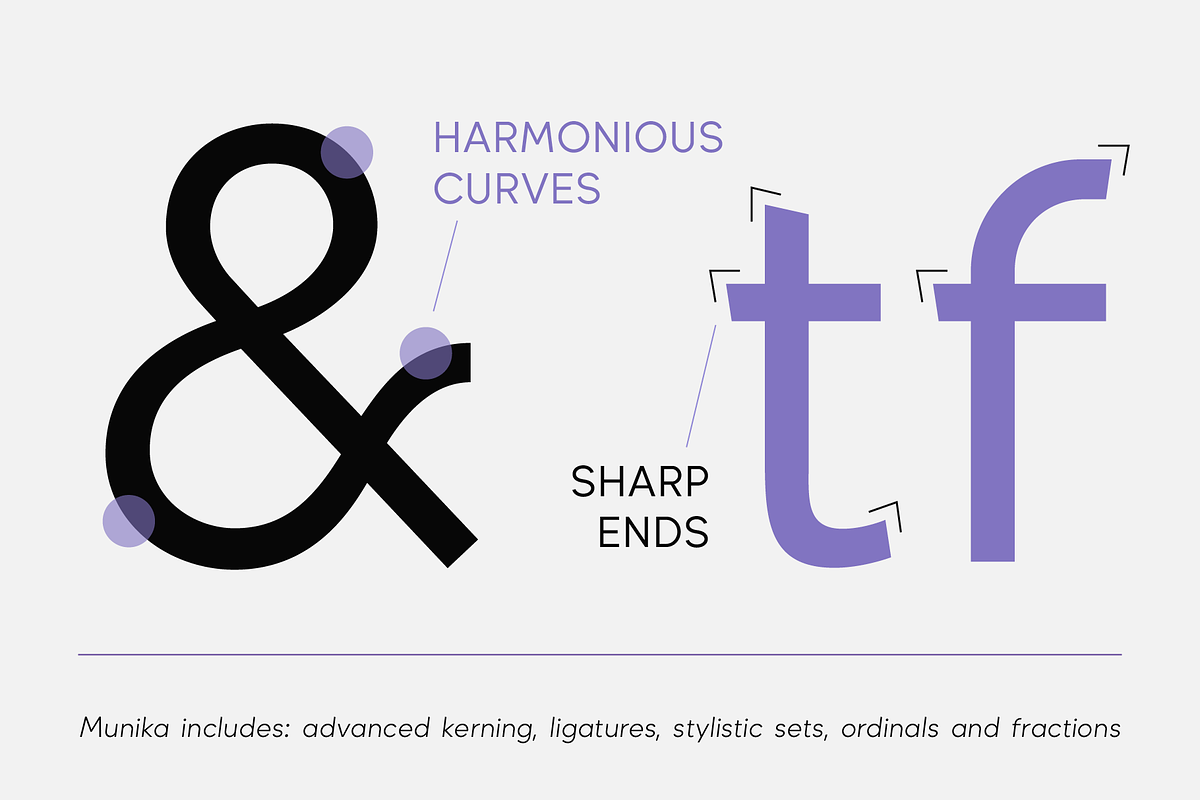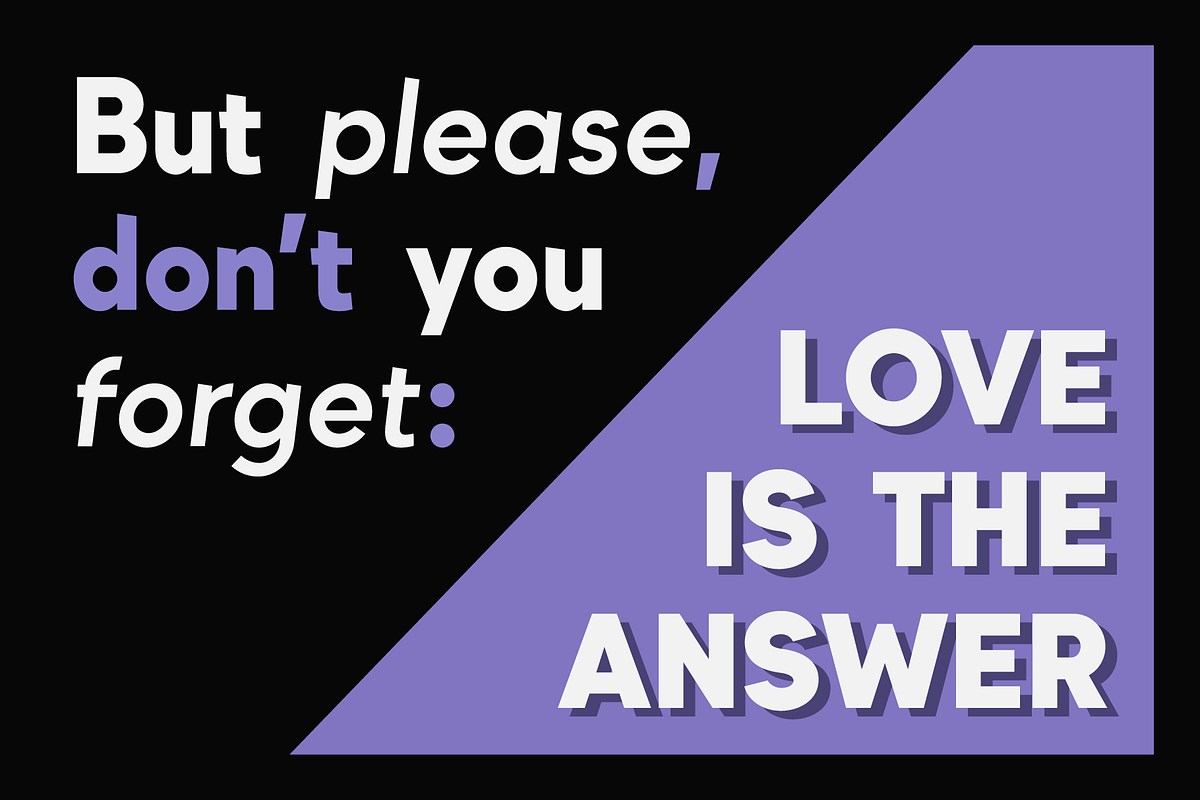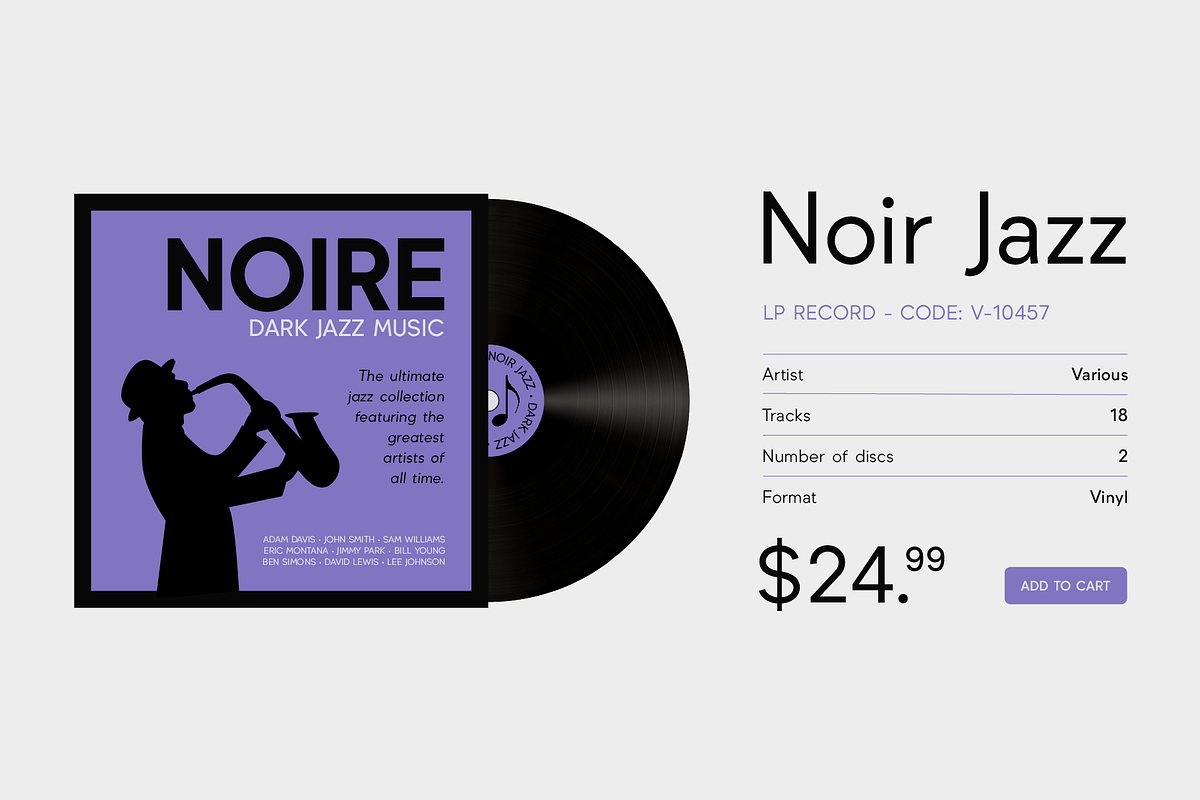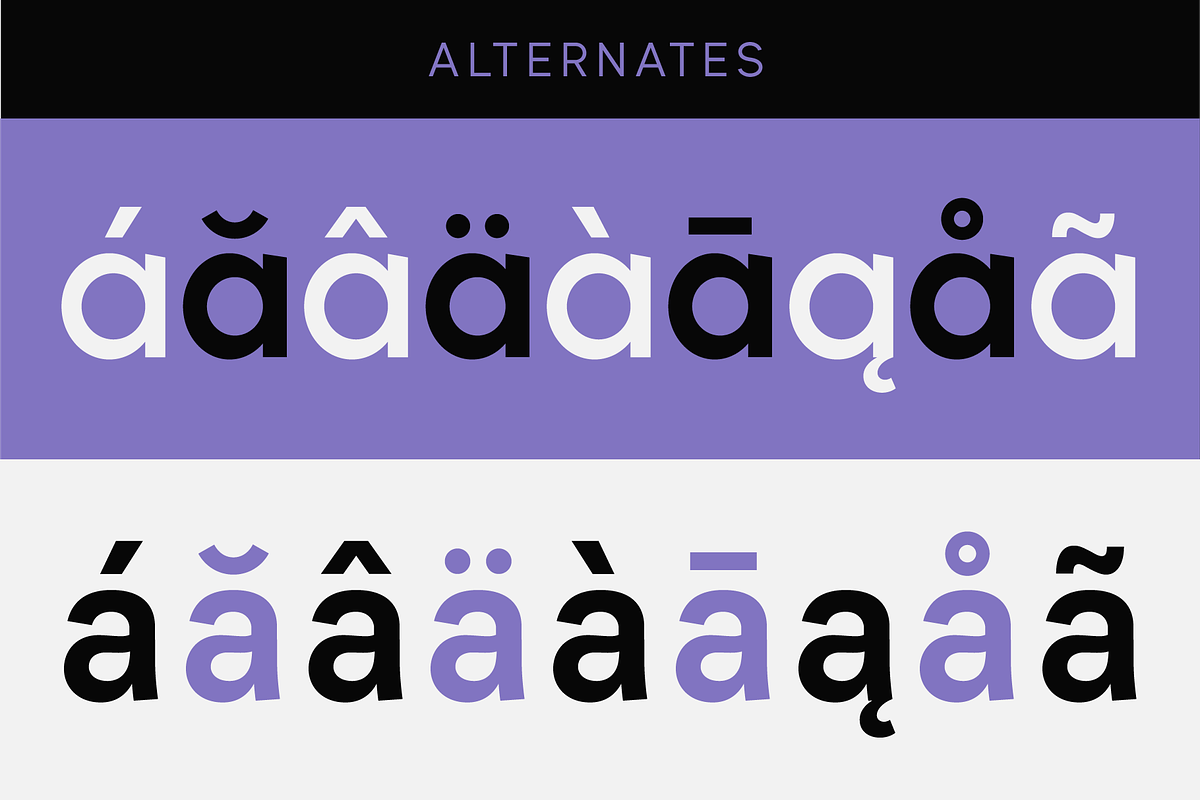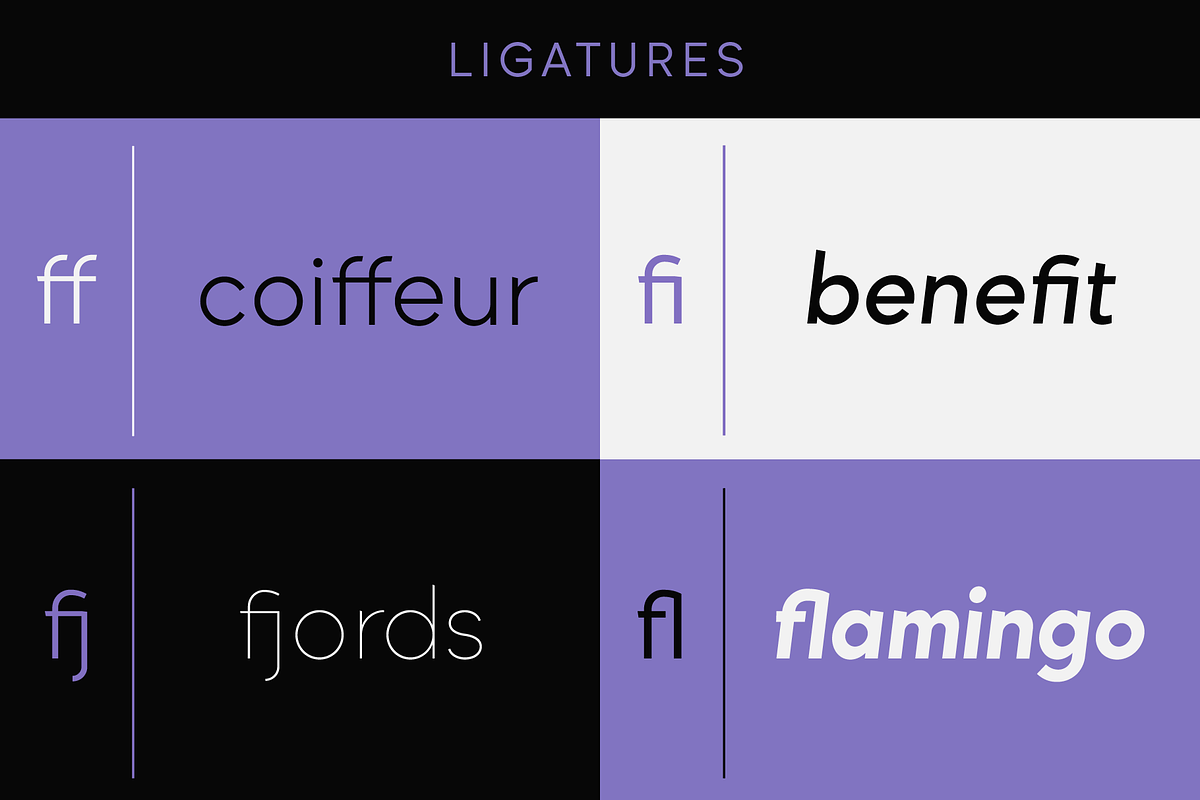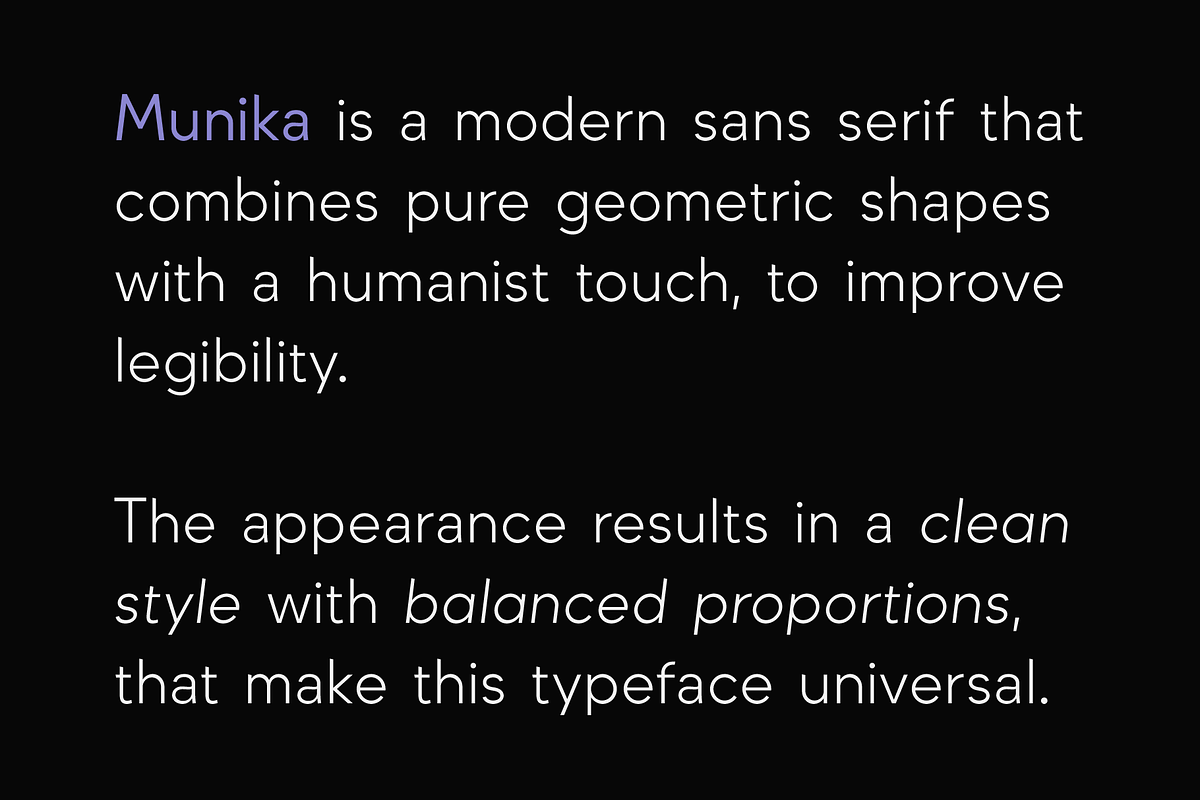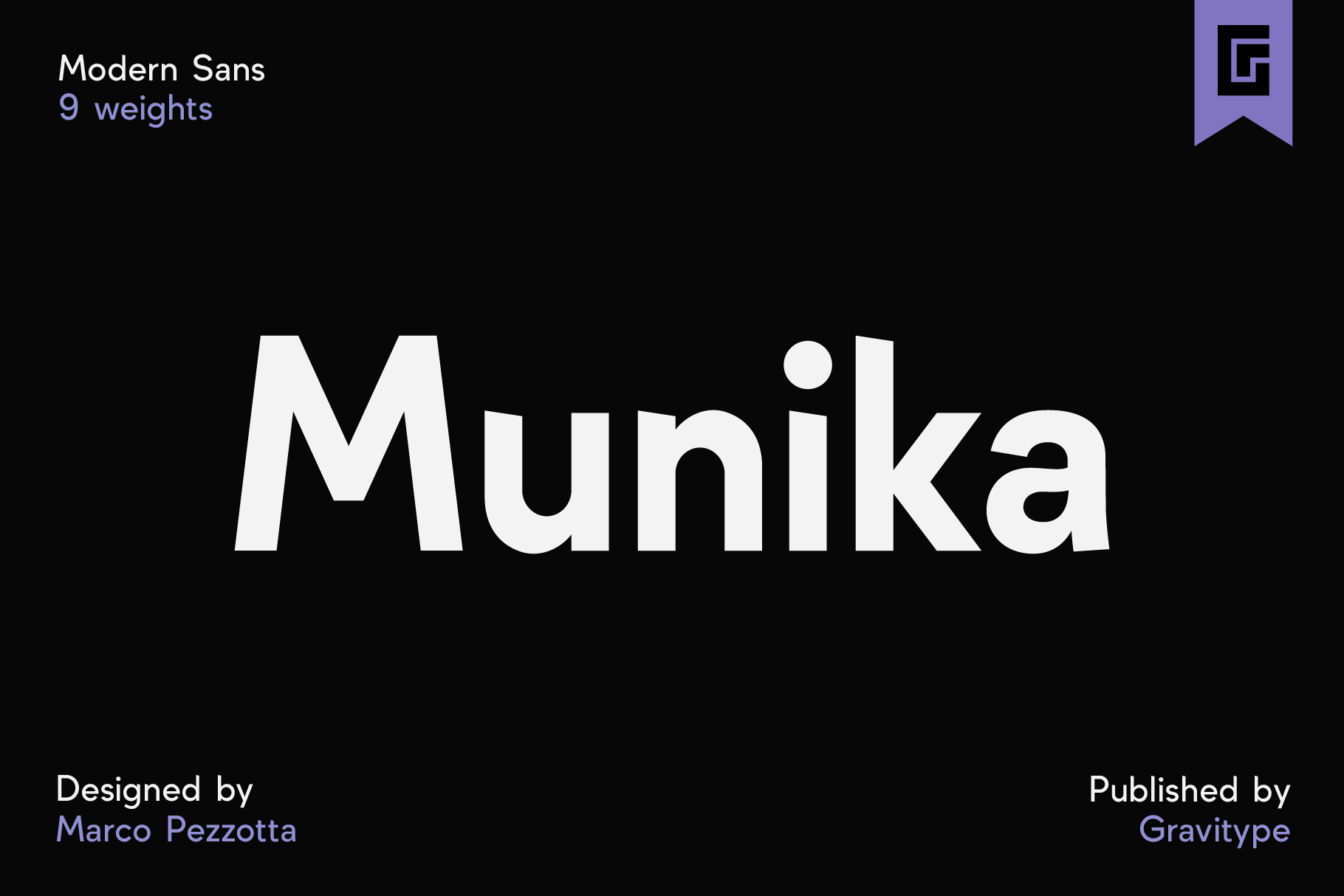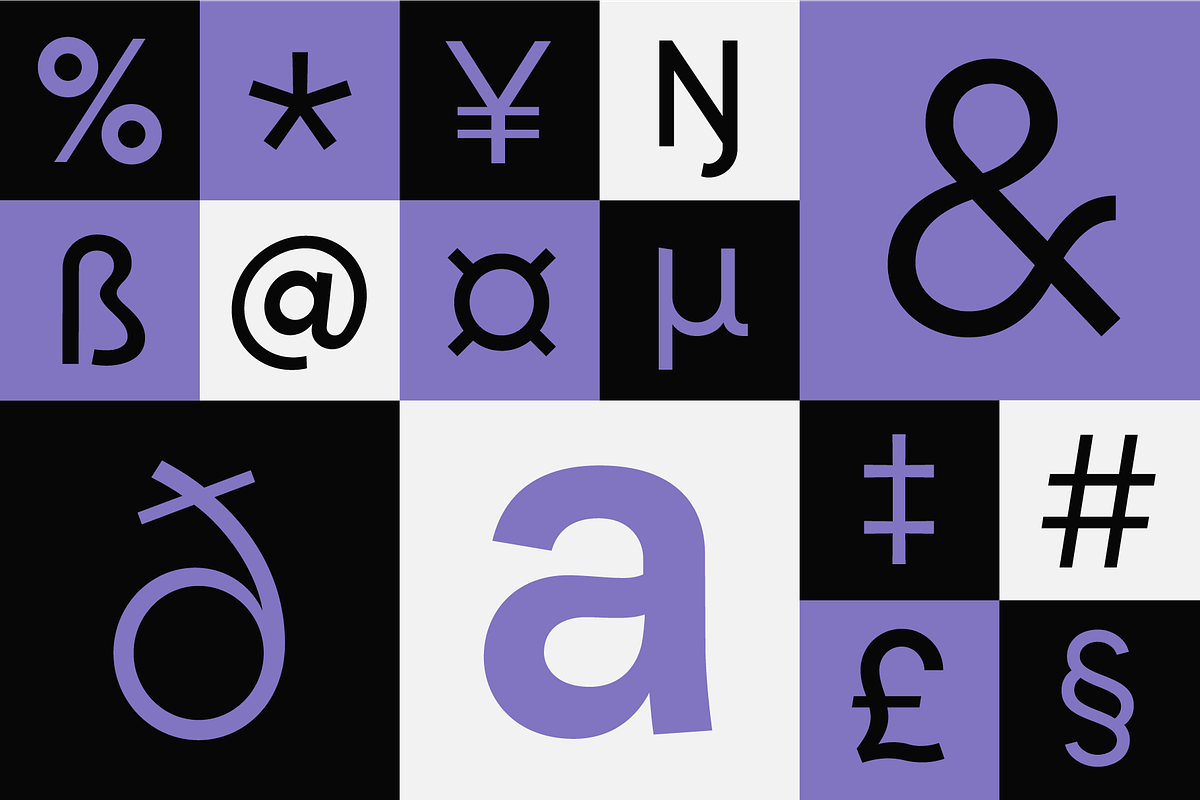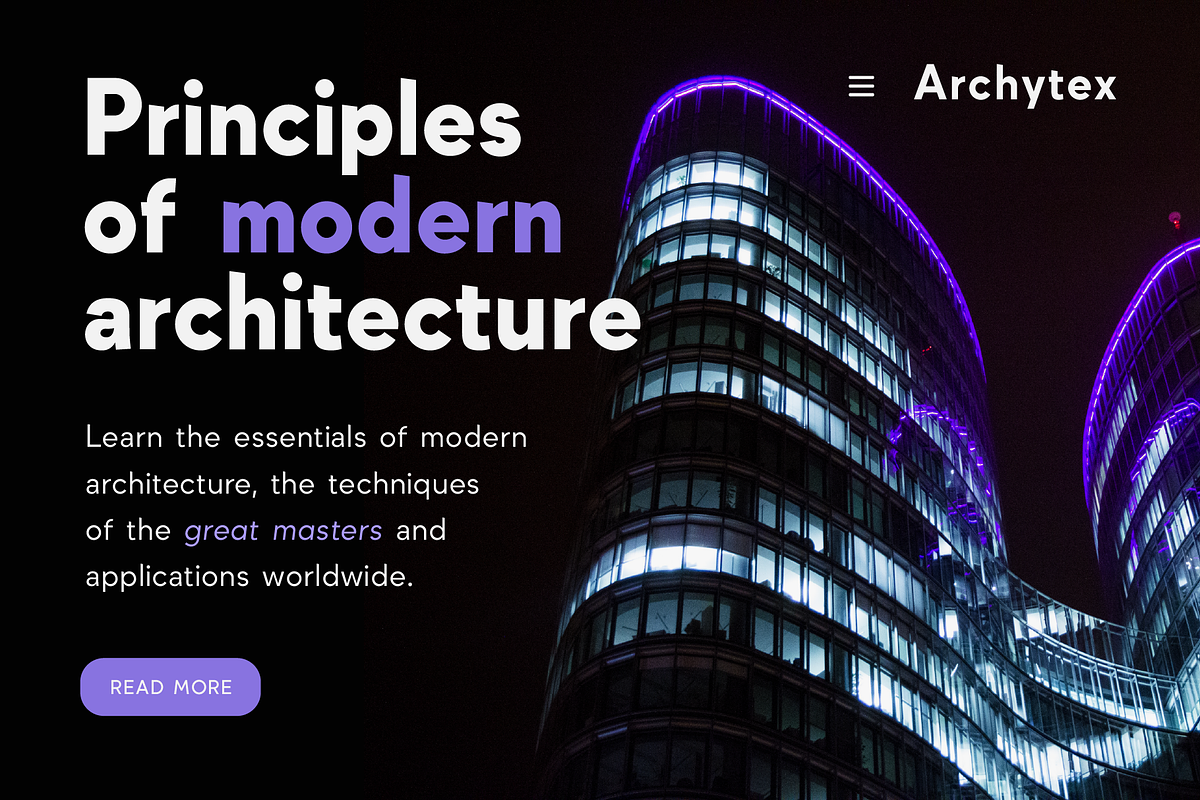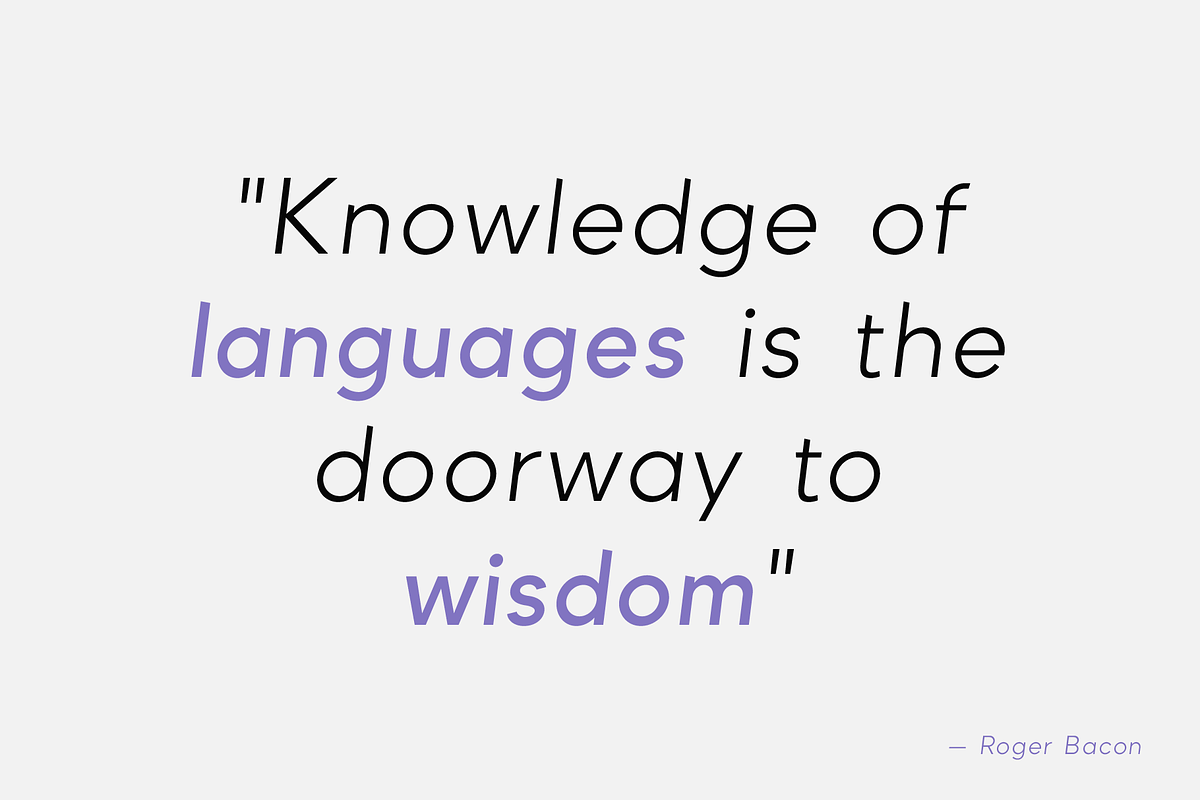
Munika - Modern Sans Serif Font
Munika is a modern sans serif born from the equilibrium between geometric shapes and humanist details. Its lines were forged with the concept of clarity in mind, to make it the perfectly accessible typeface.
This global family comes in 9 weights plus matching italics, with ligatures that facilitate readability and the alternative letter “a” in both versions. These features were conceived to further expand the range of use of the type system, to offer multiple aesthetic and technical options.
Munika’s unique personality and fresh style make it perfect for a rebrand.